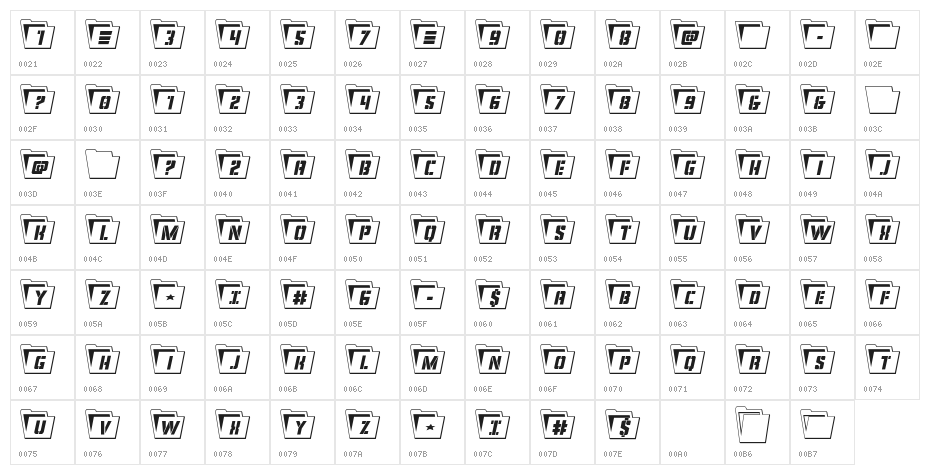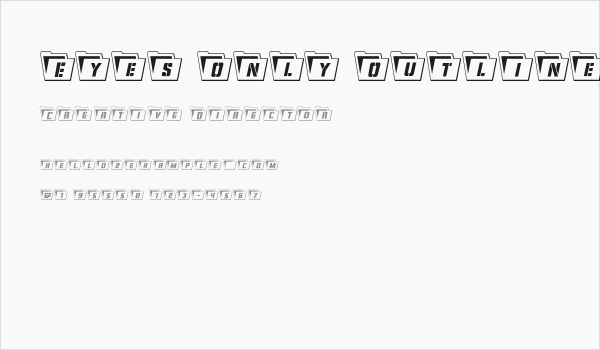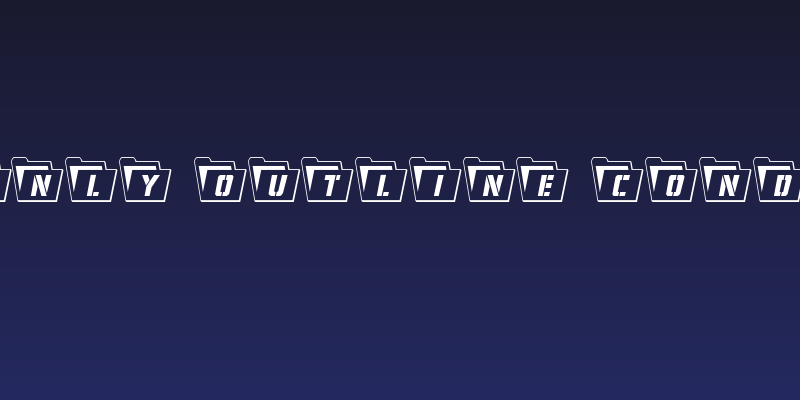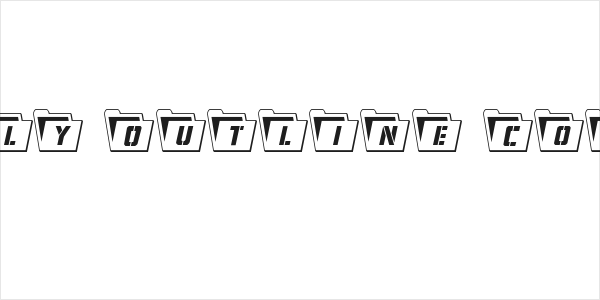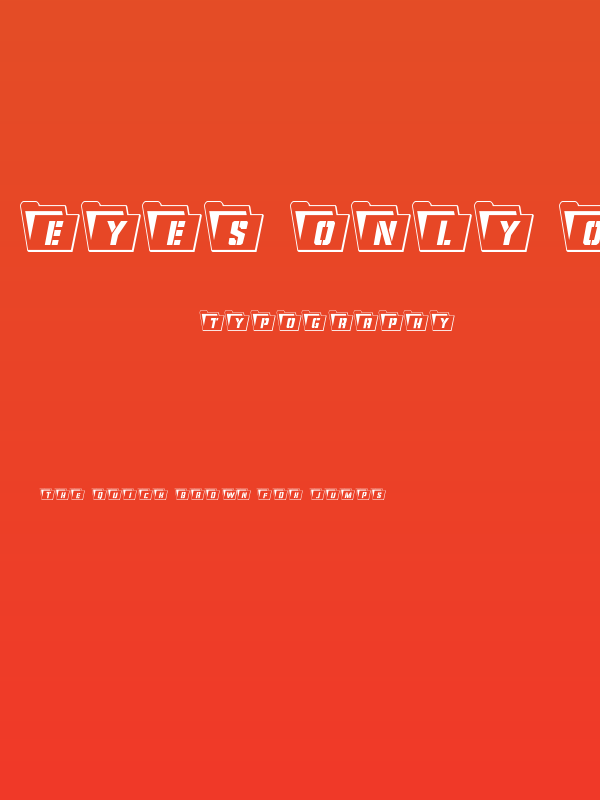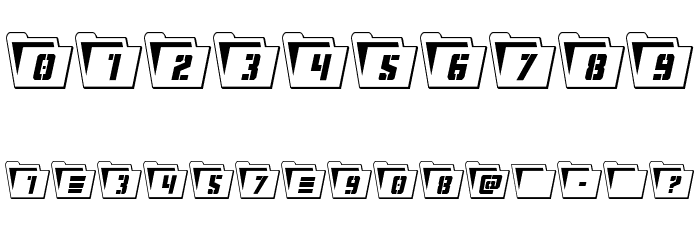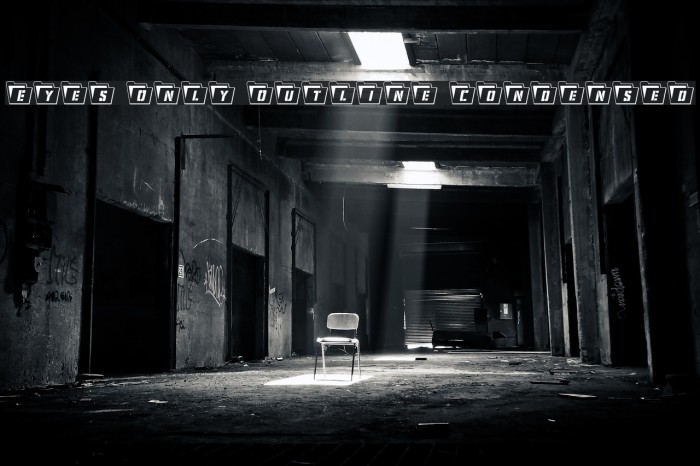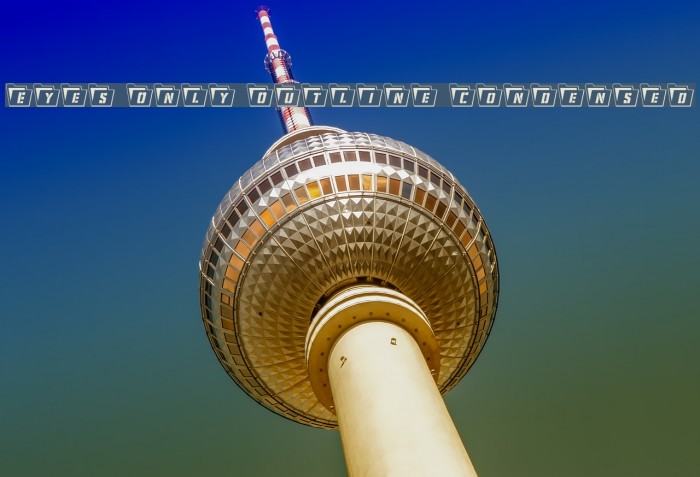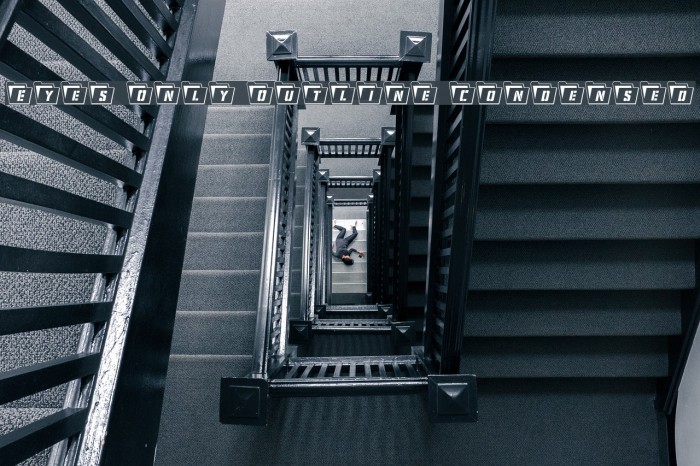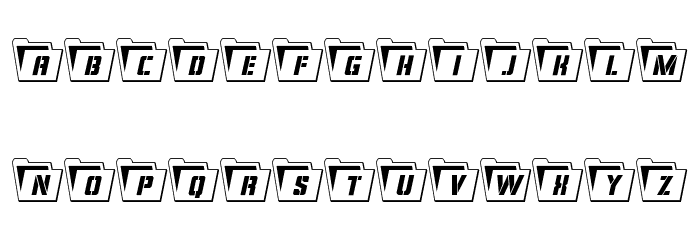
Eyes Only Outline Condensed Font
This font features a unique and playful design where each character is enclosed within a folder-like outline, creating a distinctive and eye-catching appearance. The letters and numbers are bold and condensed, with a modern and geometric style that emphasizes clarity and impact. The outline adds a layer of depth, making the characters stand out prominently. This font is ideal for projects that require a fun and creative touch, such as children's books, playful branding, or tech-related designs. The consistent outline around each character ensures uniformity and a cohesive look across all text.
| Proposed Projects | Ideal for children's books, playful branding, tech-related designs, and creative advertising. |